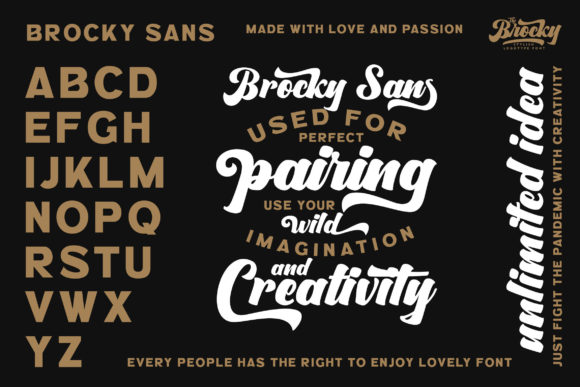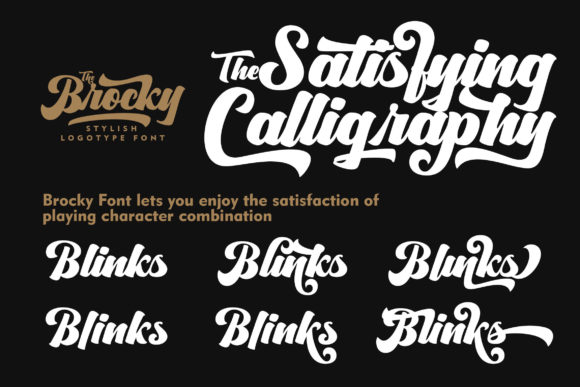
The Brocky Font
db-ku.com - Script & Handwritten -- The Brocky is a gorgeous and bold duo font (sans serif and handwritten), crafted to give your headlines and logotype projects a retro touch. This font reads as strong, confident, and dynamic and can add tons of nostalgic character to your designs.